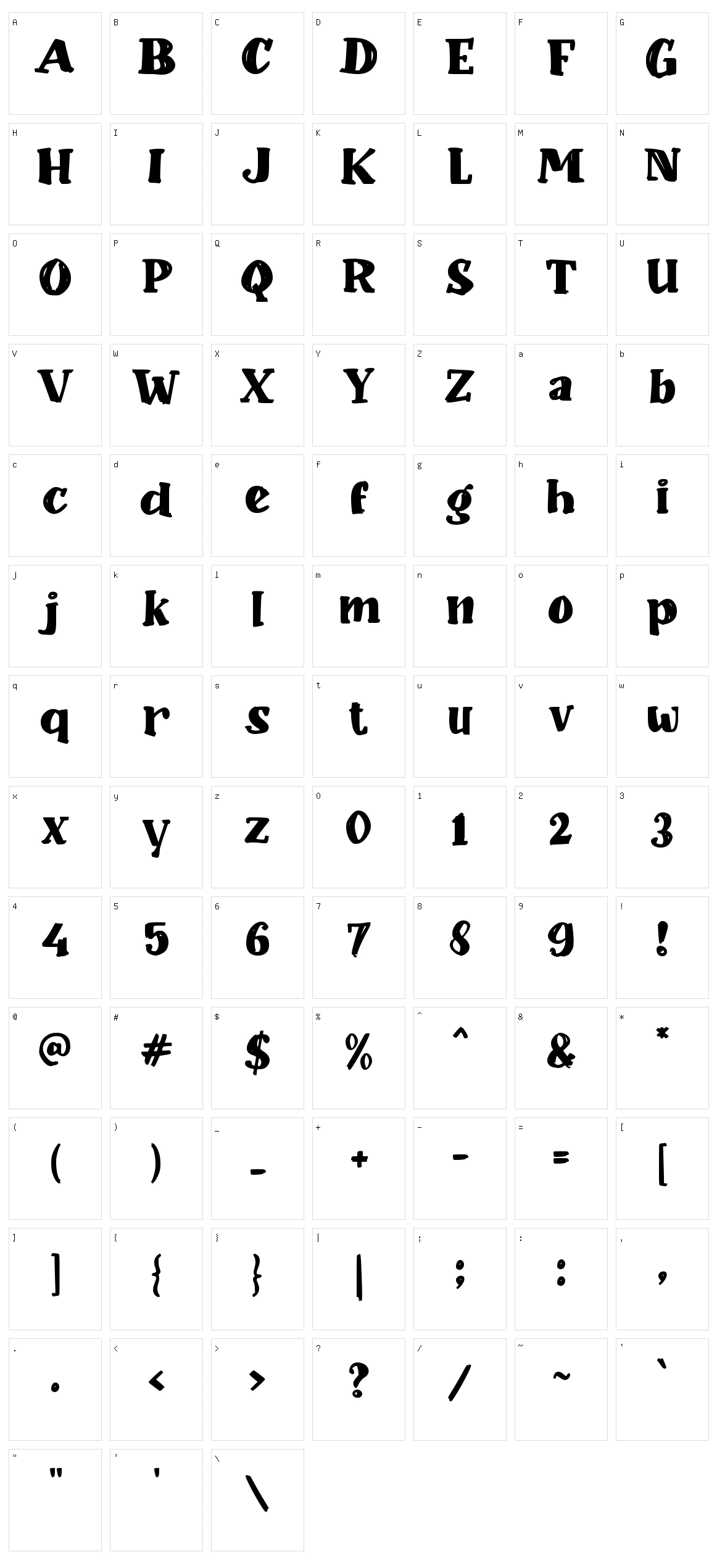
The free font b Bablas Angine is carefully designed by wep, showcasing a thoughtful balance of creativity and usability and falls under the Cartoon font style. When you download the ZIP file, it contains only 16.64 KB of font files, making it lightweight and quick to download. Please review the license details below to understand permitted usage and distribution rights. If license information is not available, we recommend using this font for personal projects only or contacting the author directly for commercial usage permissions.